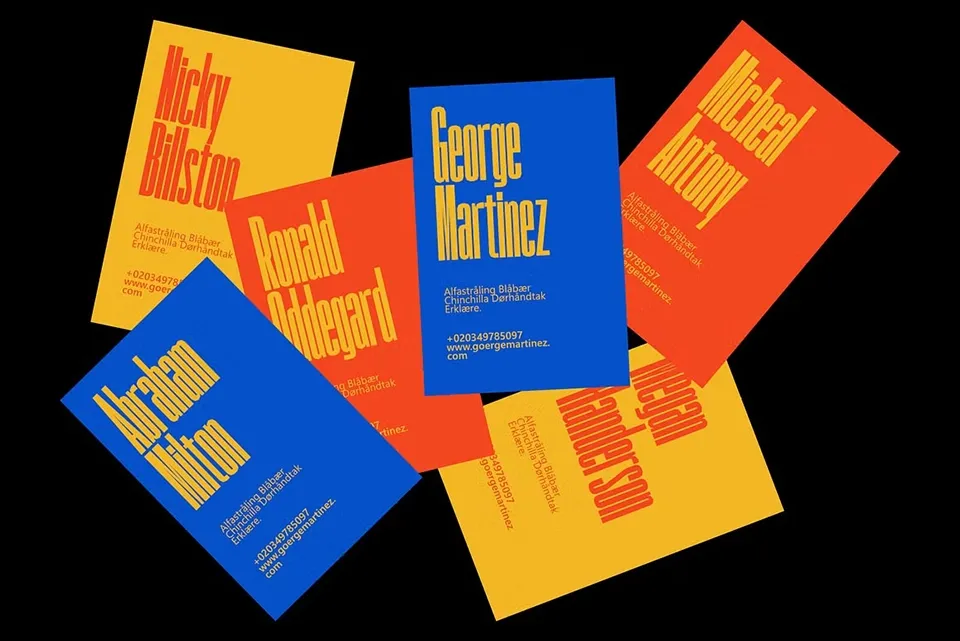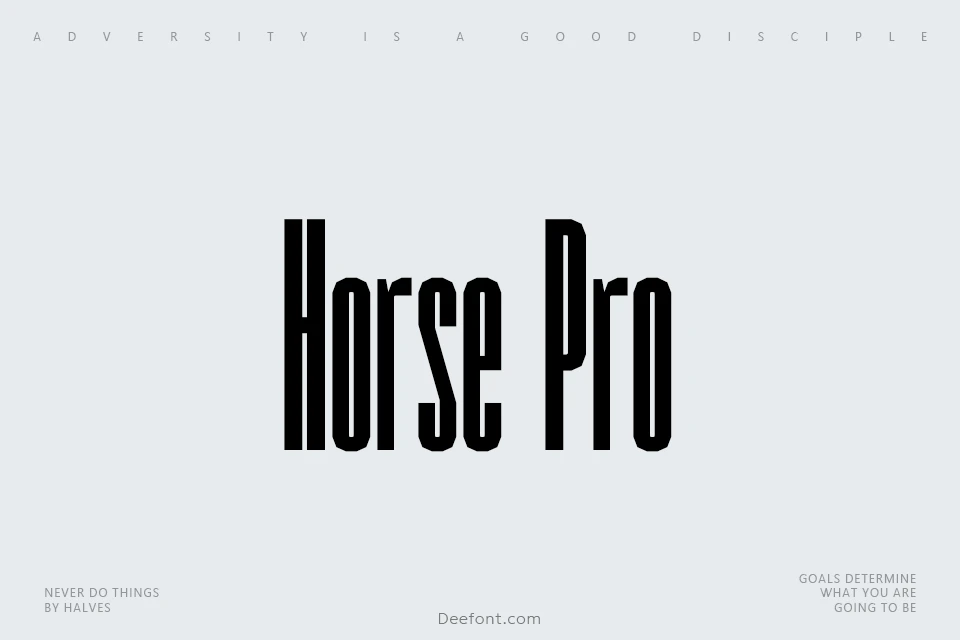
Horse Pro Font
Horse Pro Font is a unique sans serif display font family inspired by vintage design archives. It features multiple weights, offering versatility and a distinctive look for branding, logo projects, headings, advertising, packaging, web design, print goods, and other creative endeavors. Its geometric, condensed letterforms make it ideal for eye-catching and modern visual identities.